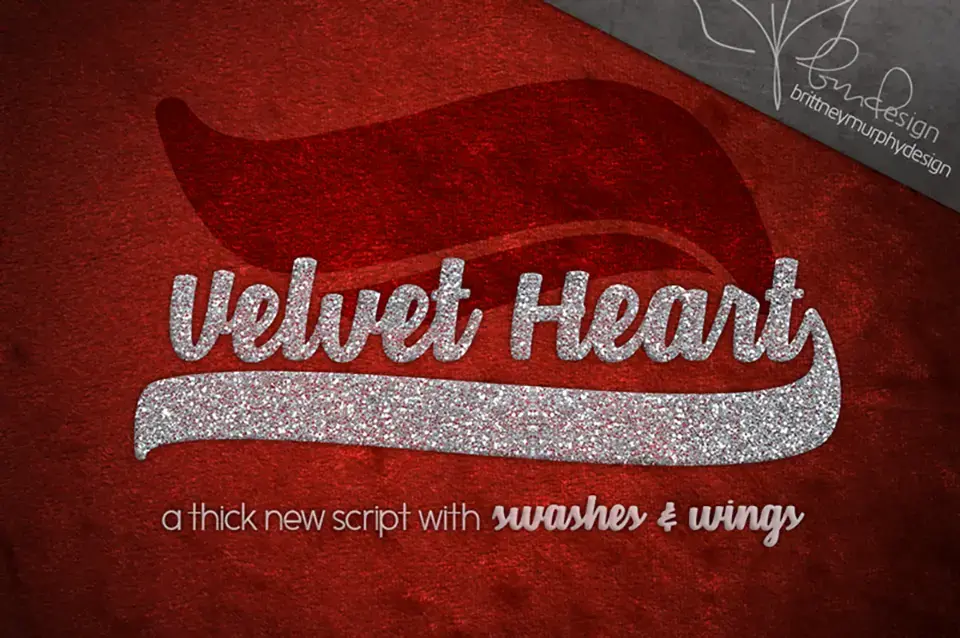
Velvet Heart Font
Designed by Brittney Murphy
Velvet Heart is a bold script with rounded strokes, generous curves, and flowing connections that read as casual but carefully drawn. The letterforms lean on thick downstrokes and softer terminals, so text feels dense and lively rather than airy. Extra swashes in different lengths, plus decorative “wings,” make it easy to build dramatic wordmarks or highlight single words in a layout. It works nicely for short phrases, logos, and overlays on photos where personality matters more than strict legibility. Long paragraphs, small captions, or data-heavy layouts, on the other hand, can feel cluttered and tiring in this style.
short romantic quotes on photos
wedding and event invitations with bold names
logo-style wordmarks for feminine or lifestyle brands
social media posts needing a handwritten headline
body text or long paragraphs
formal corporate documents or reports
very small captions or UI labels
minimalist layouts that need a restrained look
Perfect for invitation, logo, and poster, with a creative and decorative style.